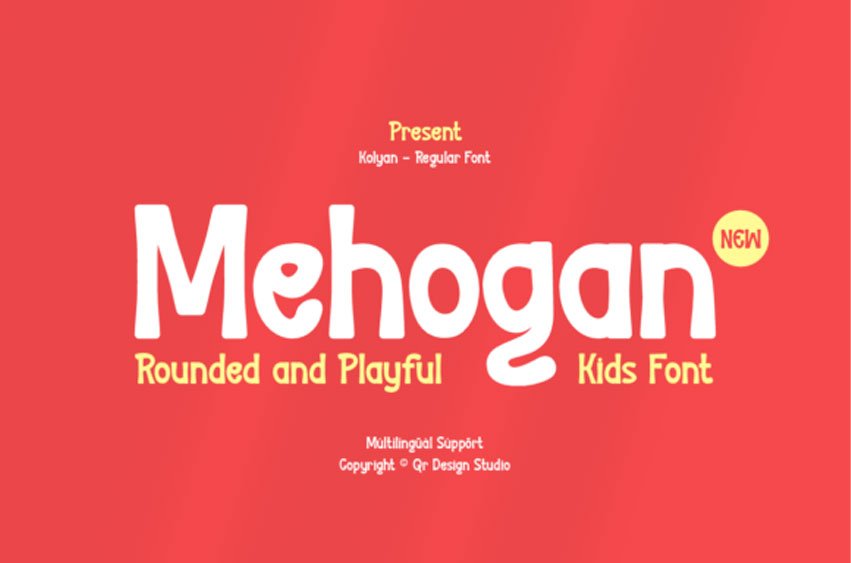
Mehogan Font is a rounded and playful kids’ font designed to bring joy and friendliness to your creative projects. With its soft curves and fun, approachable style, this typeface is perfect for children’s books, classroom materials, posters, logos, packaging, and playful branding.
Its cheerful personality makes it an excellent choice for projects that need warmth and positivity, while remaining clean and legible. Mehogan’s rounded letterforms create a sense of fun and imagination, making every design feel lighthearted and inviting.
With multilingual support, Mehogan is ready to bring a smile to projects worldwide. Whether you’re designing for kids or simply want to add a playful touch, this font is the perfect companion for bright and happy creations.